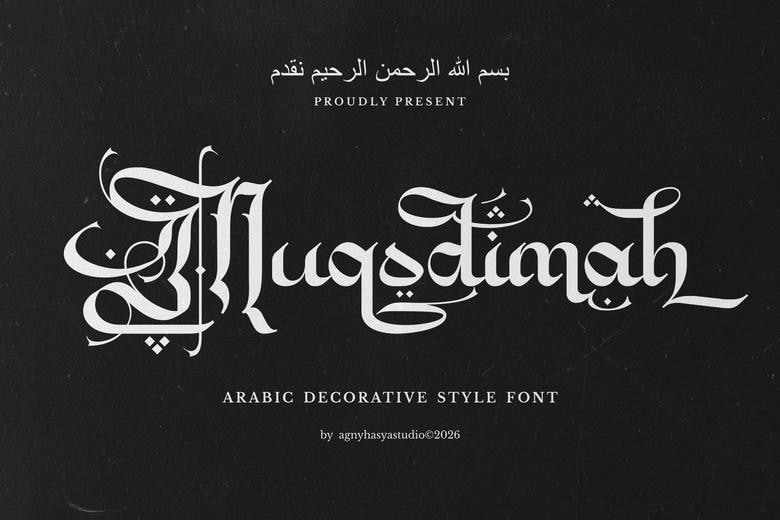
Muqodimah Font
Muqodimah is a powerful Arabic typeface-style display font based on vintage calligraphy, old English fonts, and decorative Gothic font. This typeface offers bold character full of artistic and ornamental nature which is meant to give the feeling of heritage, spirituality and historical depth.
Muqodimah is a mixture of Arabic visual culture and classical gothic structure with its contrasts, dramatic strokes, and calligraphic rhythm, which makes the creation seem sacred, timeless, and authoritative, thus developing a peculiar typographic voice. This typeface will be perfect in headlines with certain flair that combine the tradition and the artistic daring.
Muqodimah is not a body book but is a statement font that is made up of titles, posters, book covers, and designs incorporating culture and religion themes. It is a unique blend of Arabic style and Gothic typeface, which fits best in the design of the font to be used to express tradition, energy, and artistic richness. All its designs are purposeful, expressive and culturally full due to its decorative nature.
Muqodimah Arabic Font